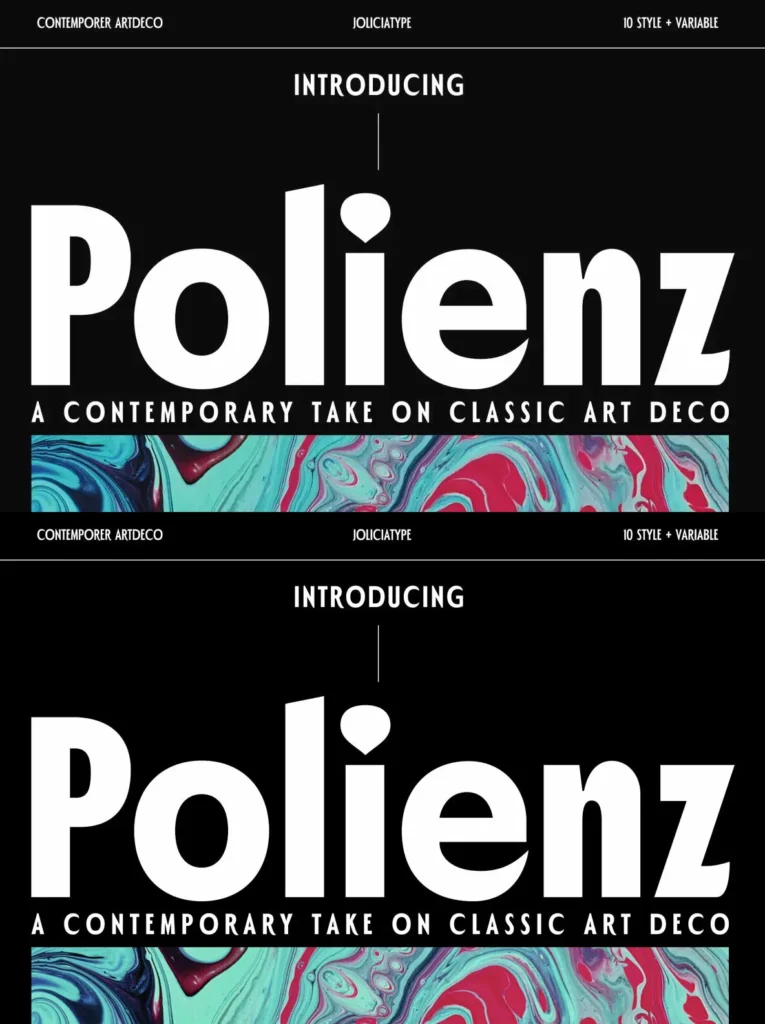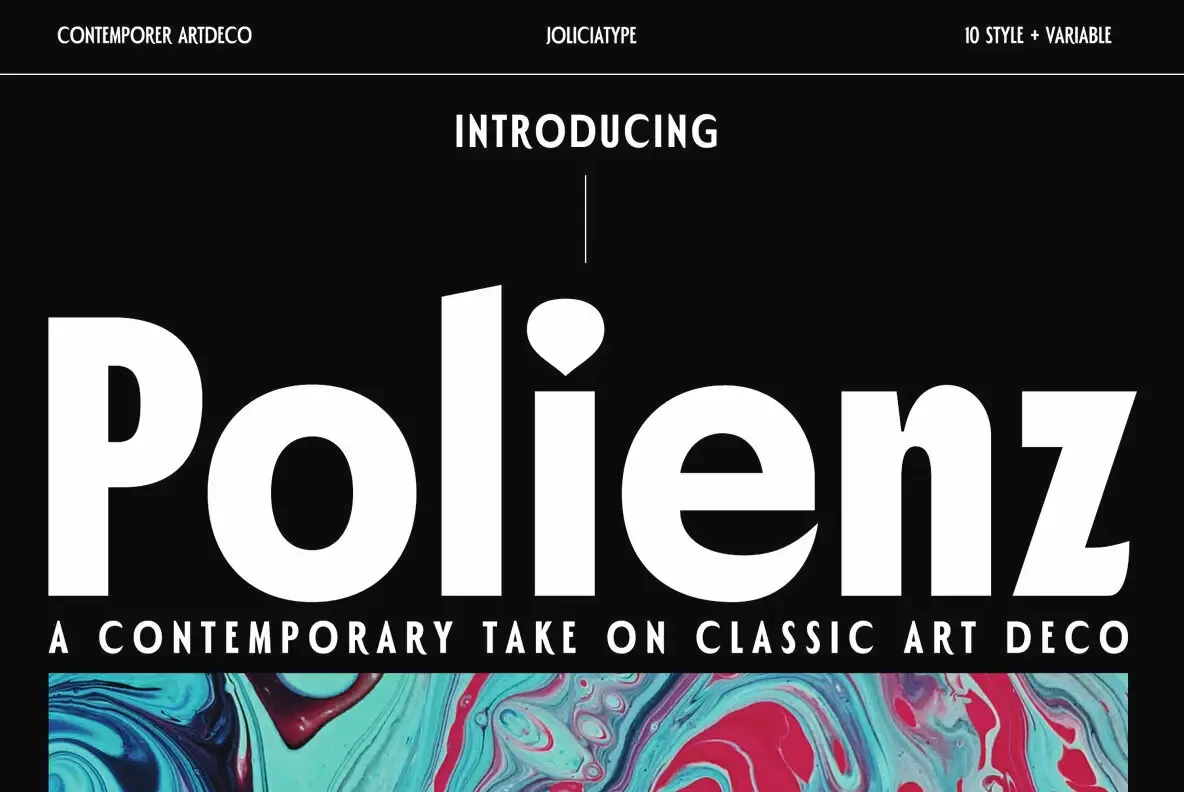
Polienz: Deco poise, modern clarity
A contemporary, Art Deco–inspired sans serif typeface with a confident presence. Clean lines and a bold geometric structure give it a polished, vintage elegance with a modern edge. Use it when you need sophistication that still reads clearly across today’s digital and print design work.
Designed by Jolicia Type, the family includes 10 weights, from Hairline to Black. This range supports crisp hierarchy and typographic control—suited to standout headlines, stylish logos, editorial layouts, and refined branding projects where consistency matters across applications.
A balanced aesthetic also makes it a strong choice for packaging, fashion, and posters. Reach for it when your creative work calls for a touch of timeless class, while keeping a contemporary tone.